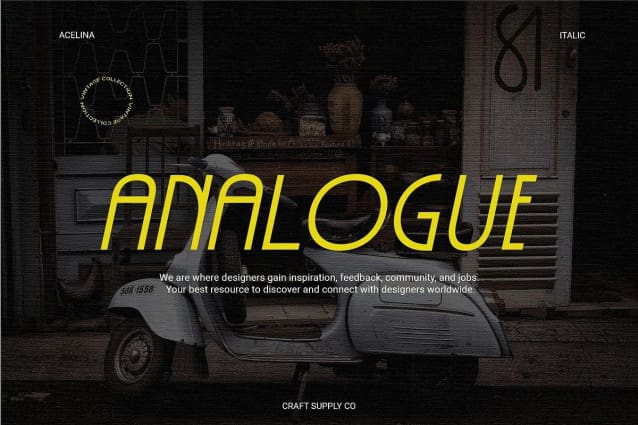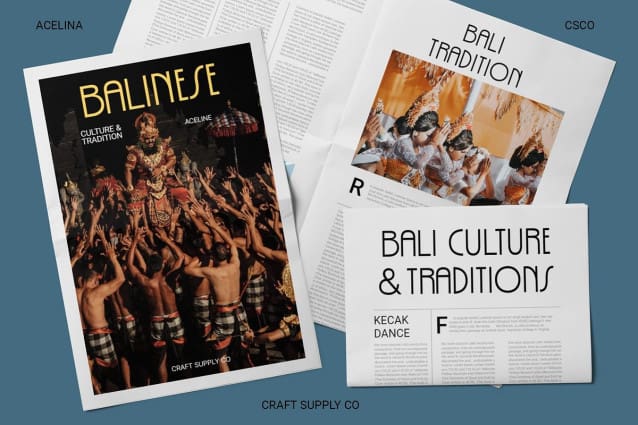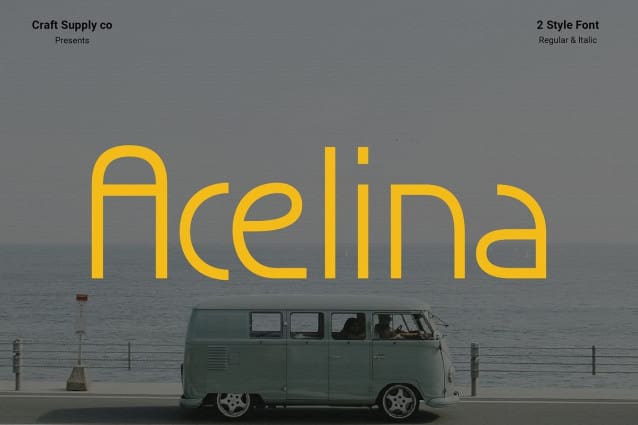
Acelina Font
Acelina Font a monoline sans-serif font, exudes a timeless simplicity, perfect for those seeking a harmonious and clean aesthetic.
Meticulous Precision In the world of fonts, Acelina stands out with its meticulous precision, each character crafted with care to maintain a consistent and clean appearance.
Versatility Unleashed Whether for a corporate document, website, or print material, Acelina seamlessly adapts, ensuring your content appears effortlessly neat and professional.
Modern Simplicity Embrace the modernity of Acelina, where simplicity isn’t just a style but a statement. This font brings clarity and sophistication to your design, ensuring a lasting impact.
In Conclusion Acelina Font is more than a font; it’s a design companion that speaks the language of simplicity. Elevate your projects with this monoline sans-serif, a testament to clean elegance that transcends trends.